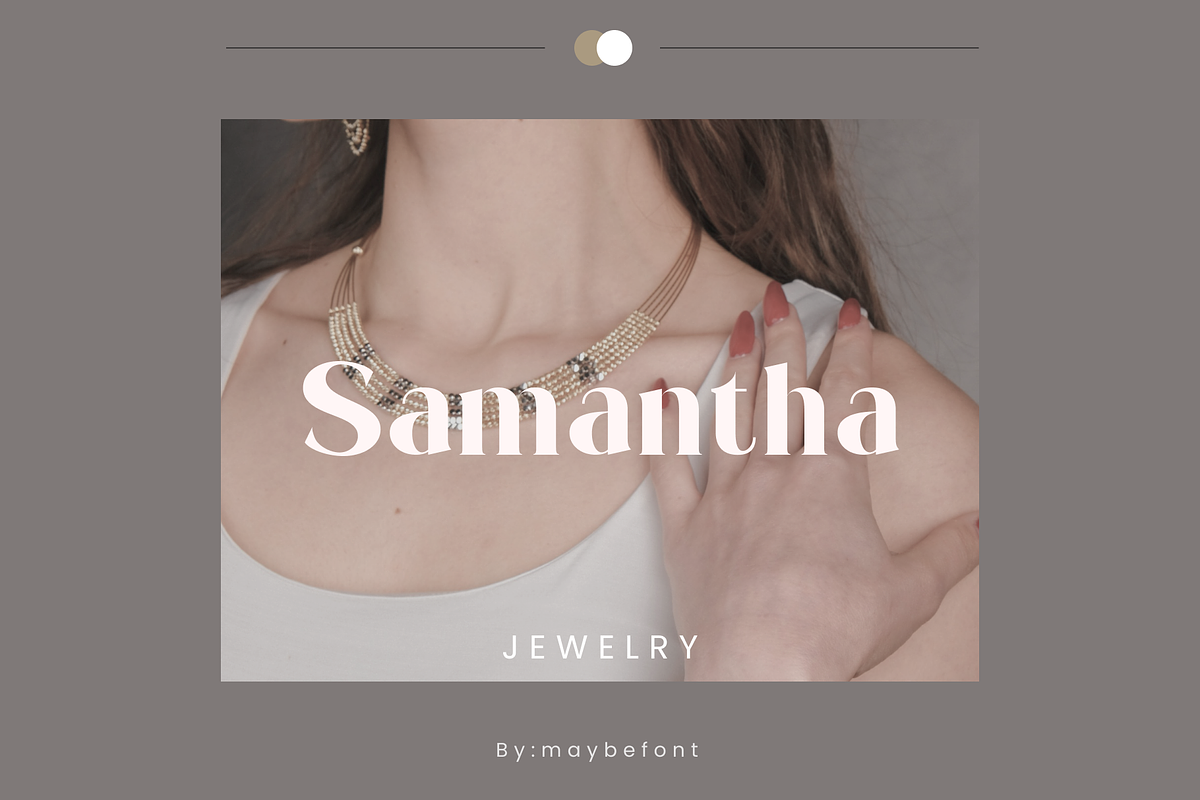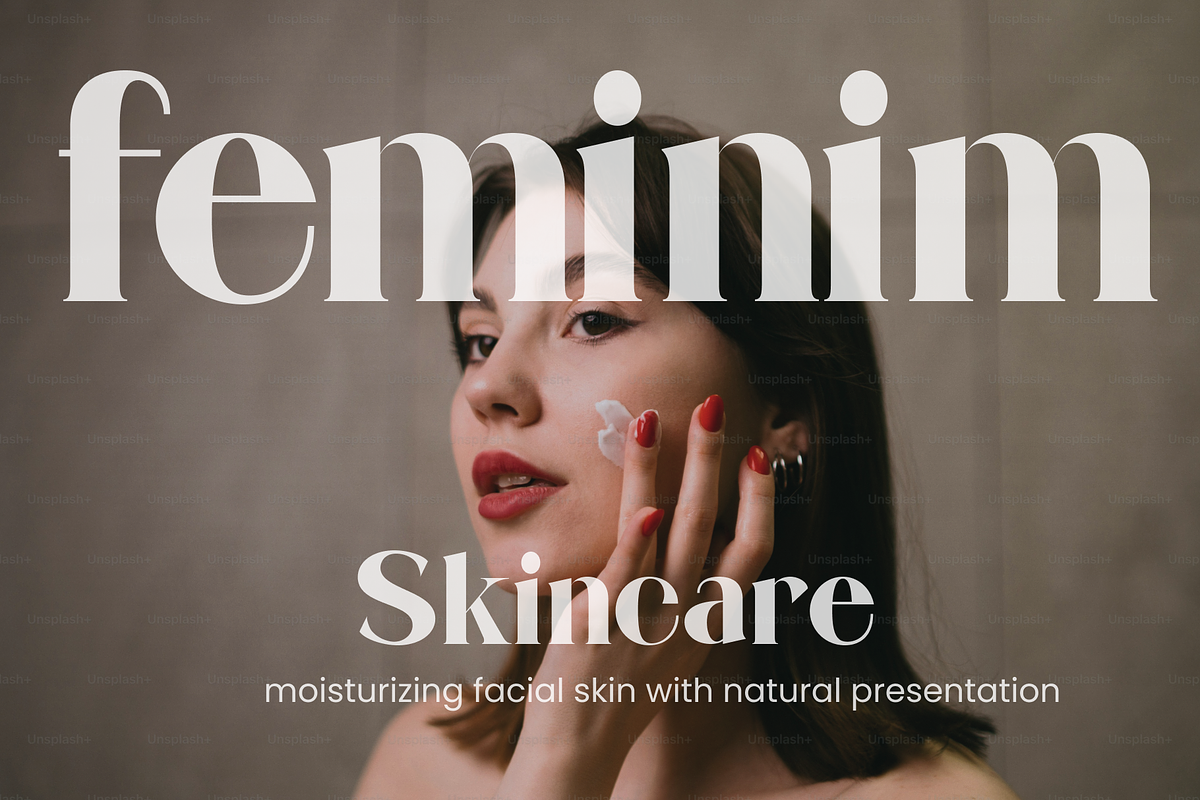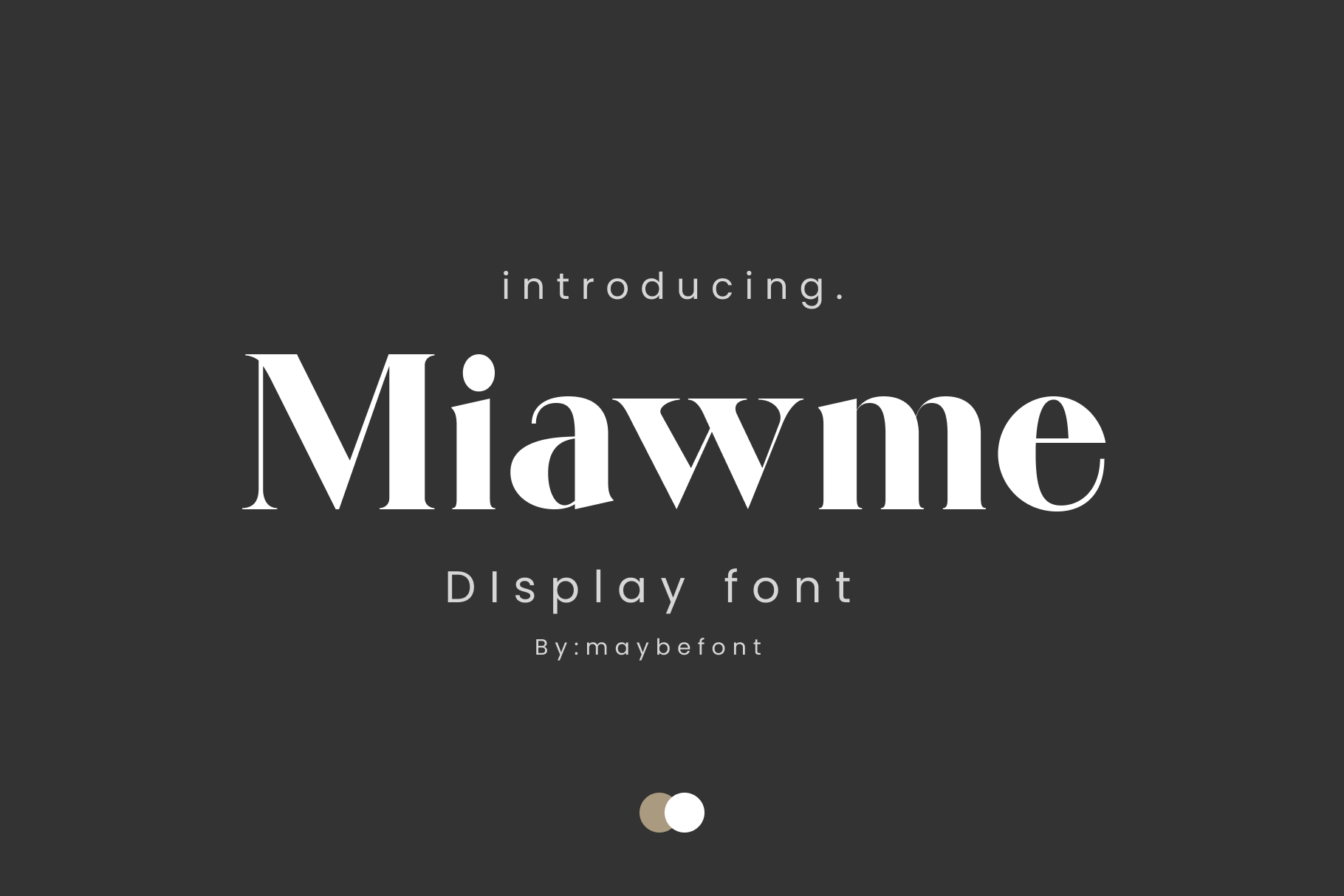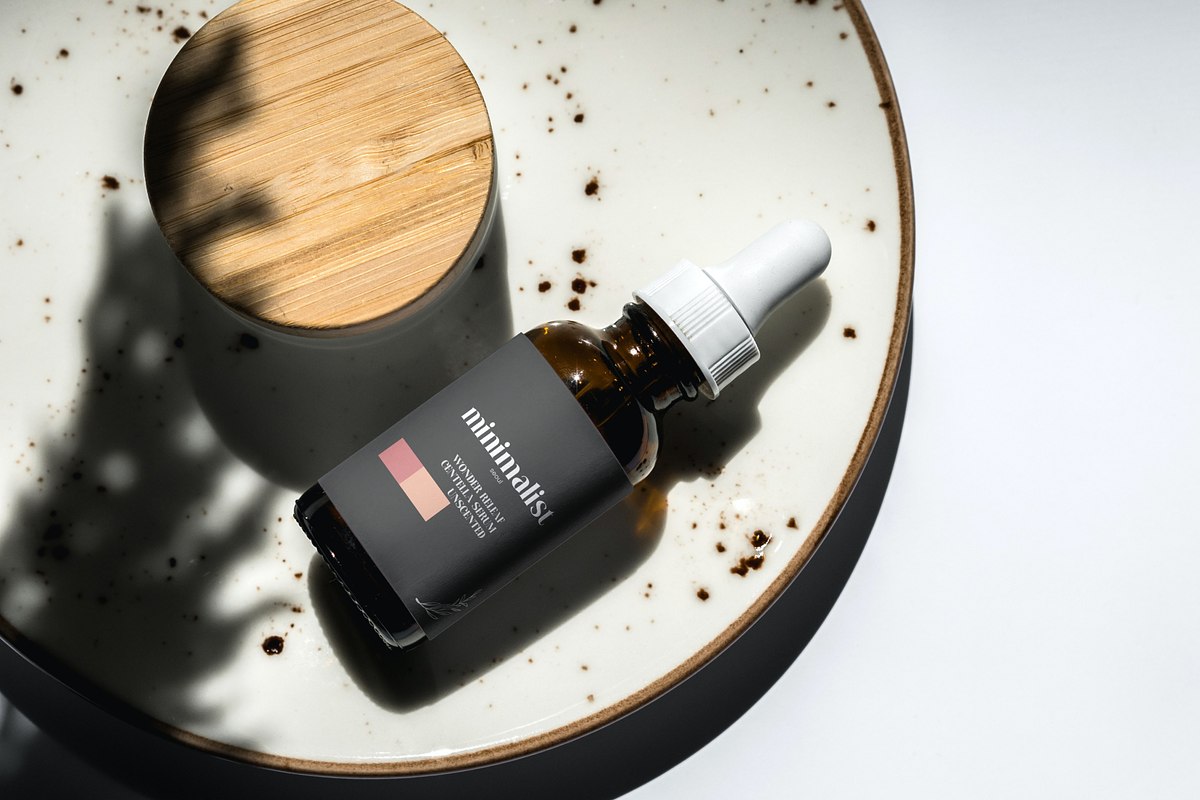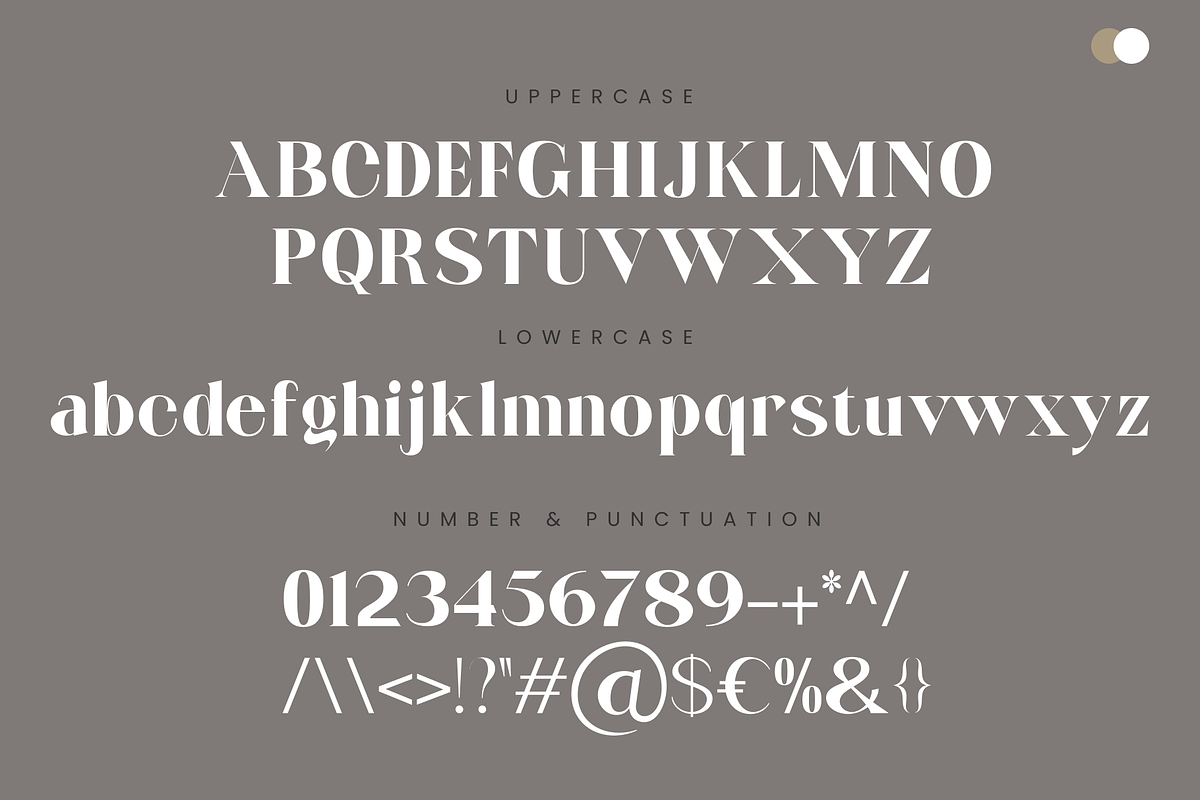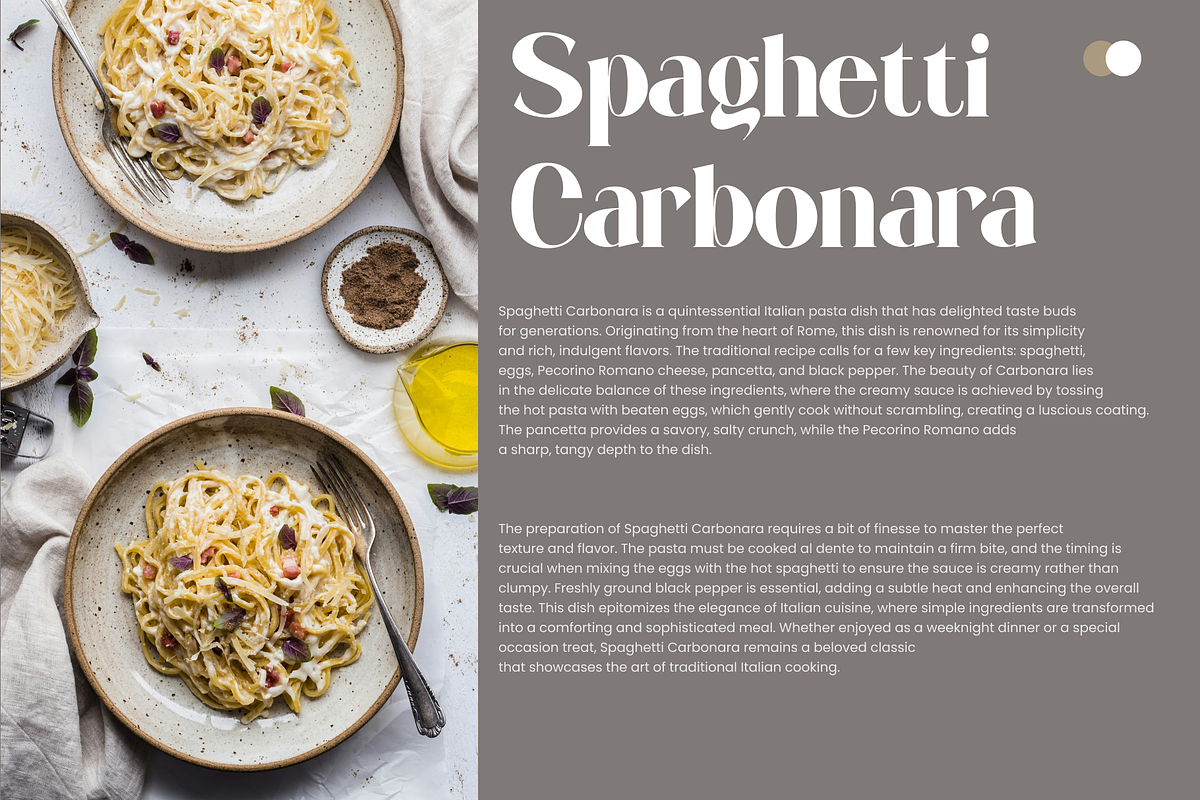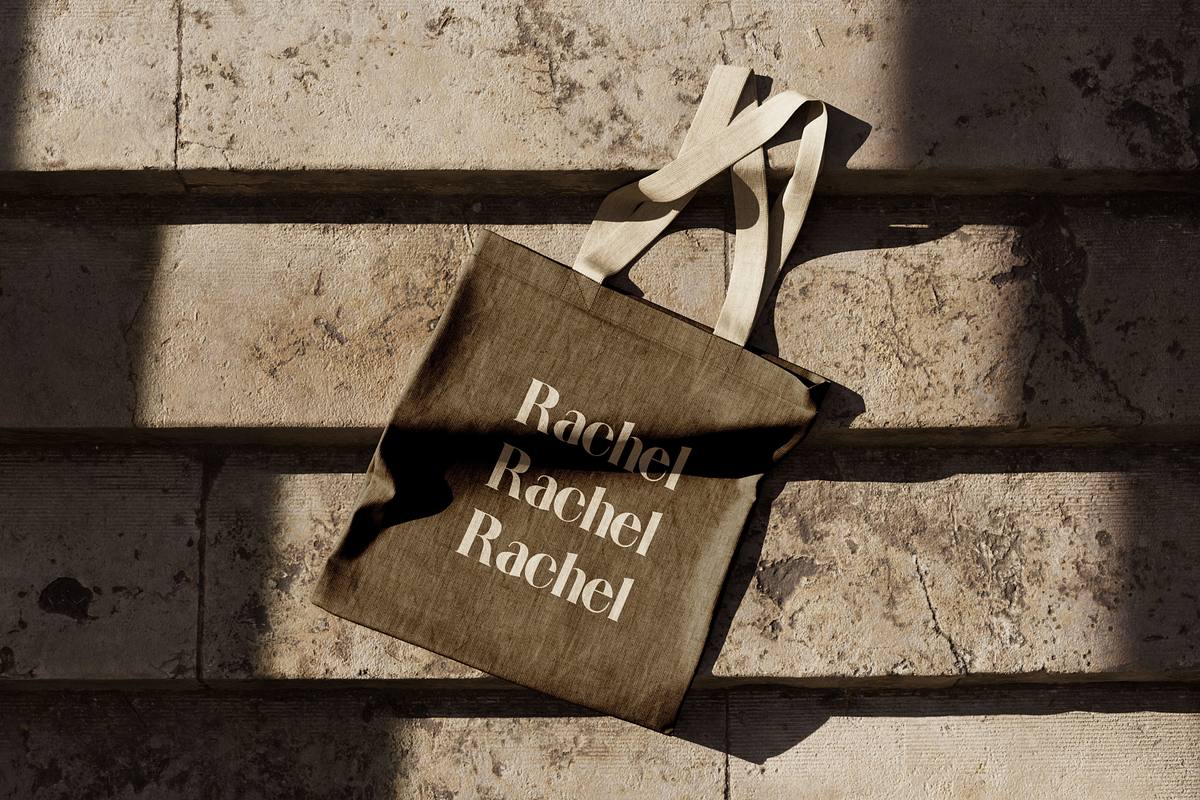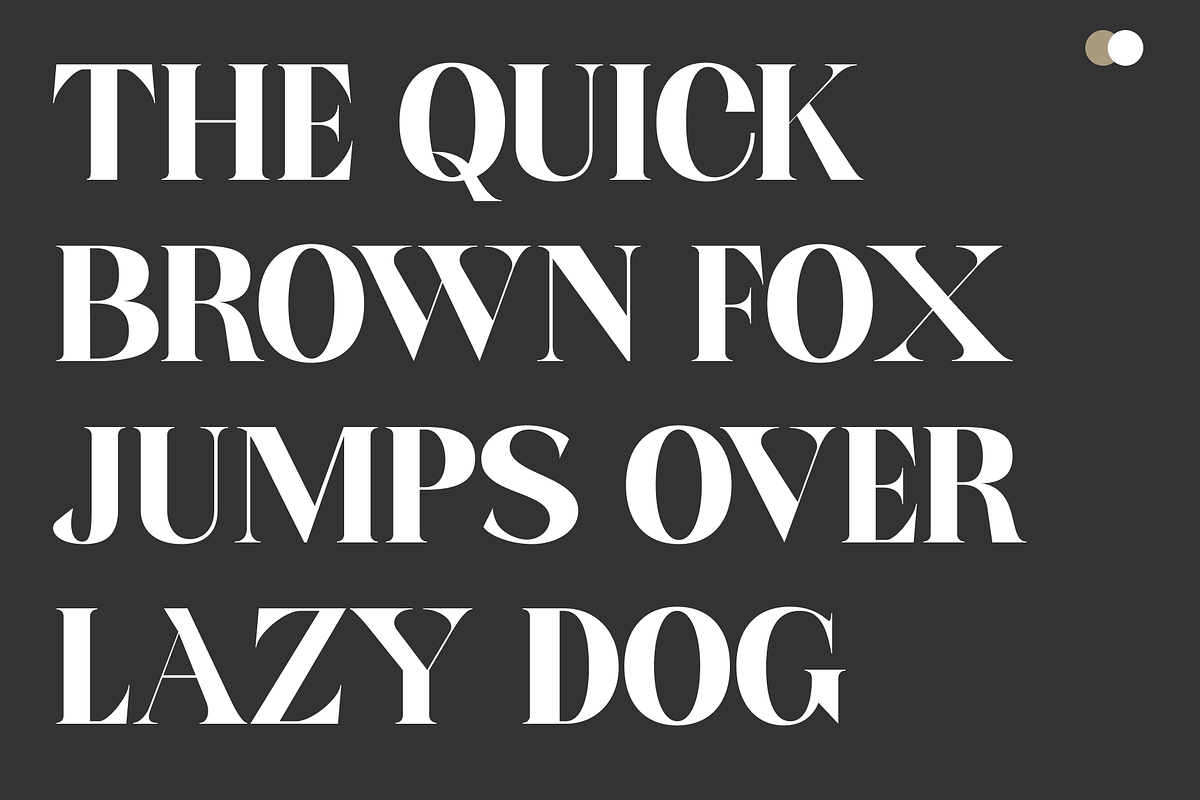
Miawme-Display font
Miawme fonts includes uppercase letters, lowercase letters, numerals, a large range of punctuation. Serif font with modern classic style. Created for poster, web design, branding, illustrations, badges and some other works.